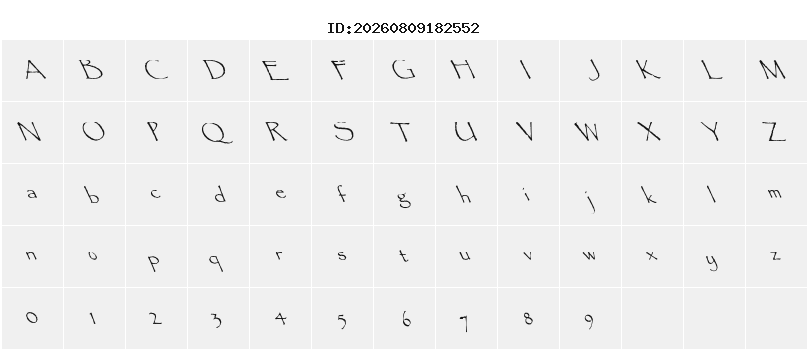
• Font Name: Paradox-Light Lefty
Paradox-Light Lefty.ttf is a modern, elegant sans-serif font designed for ultimate readability and visual harmony. Perfect for branding, headlines, web design, and print materials.